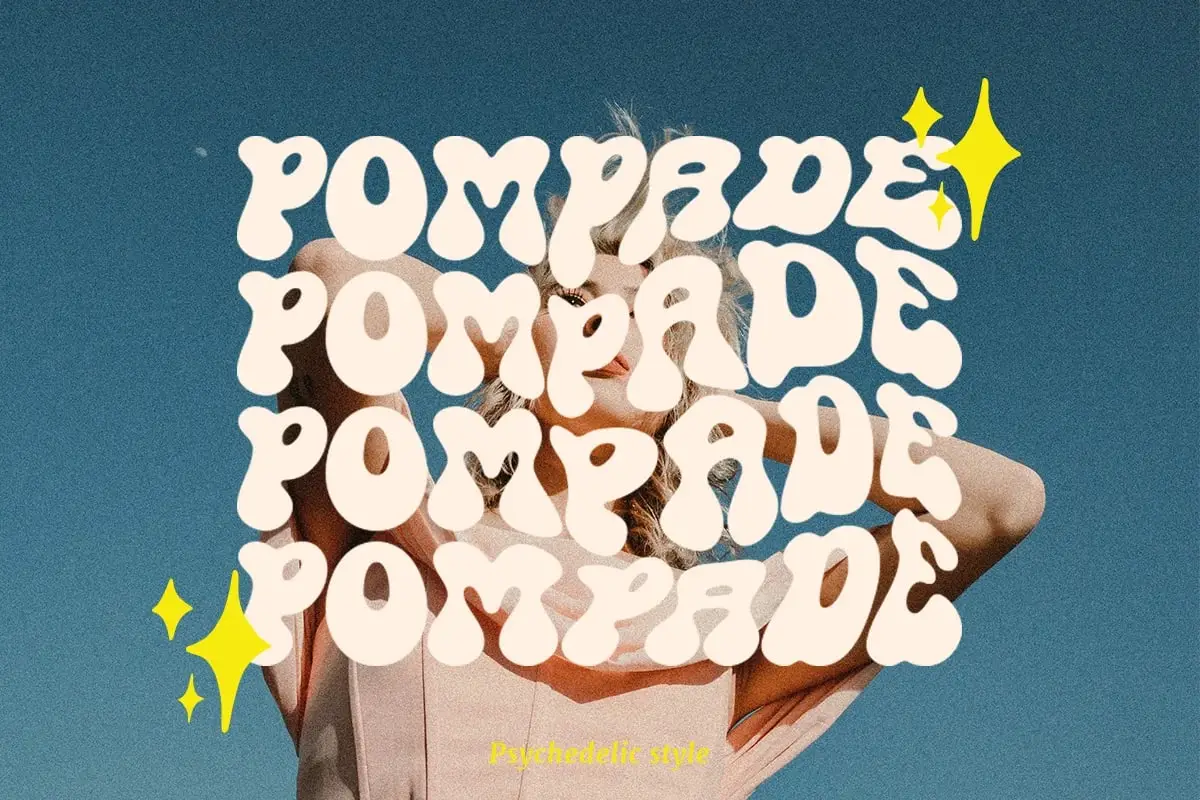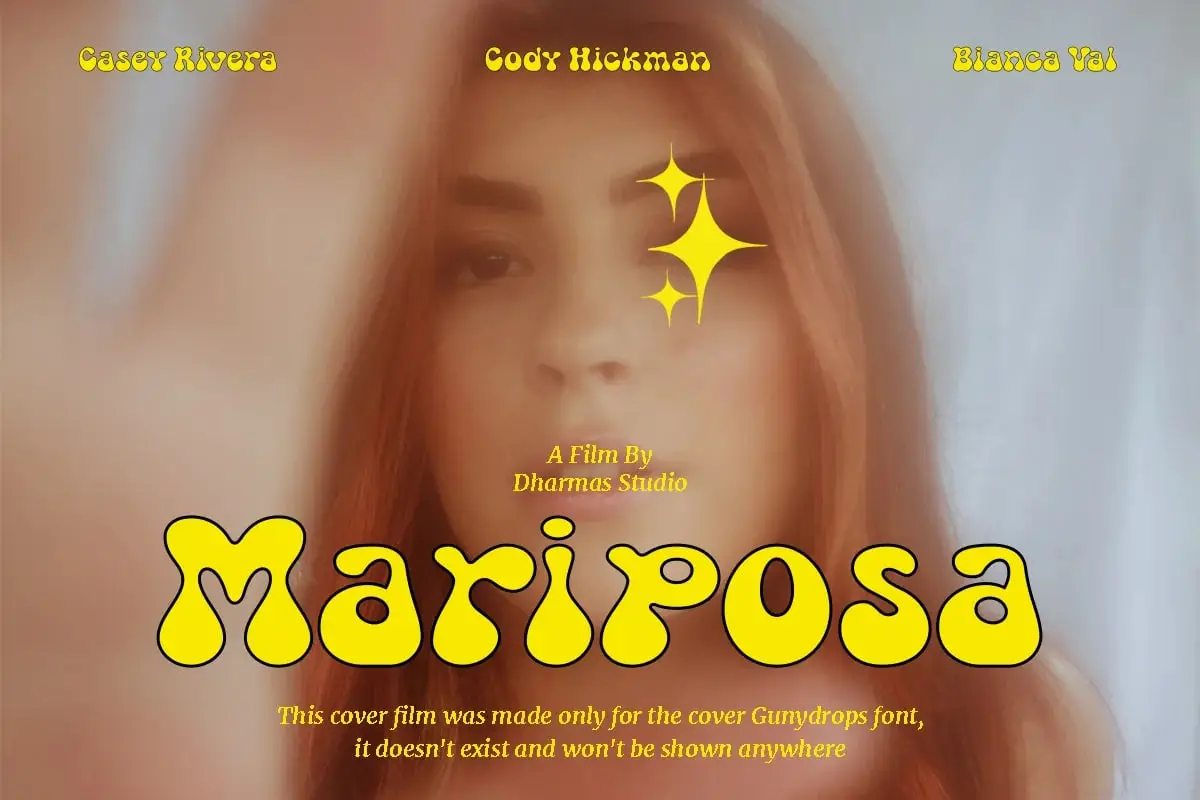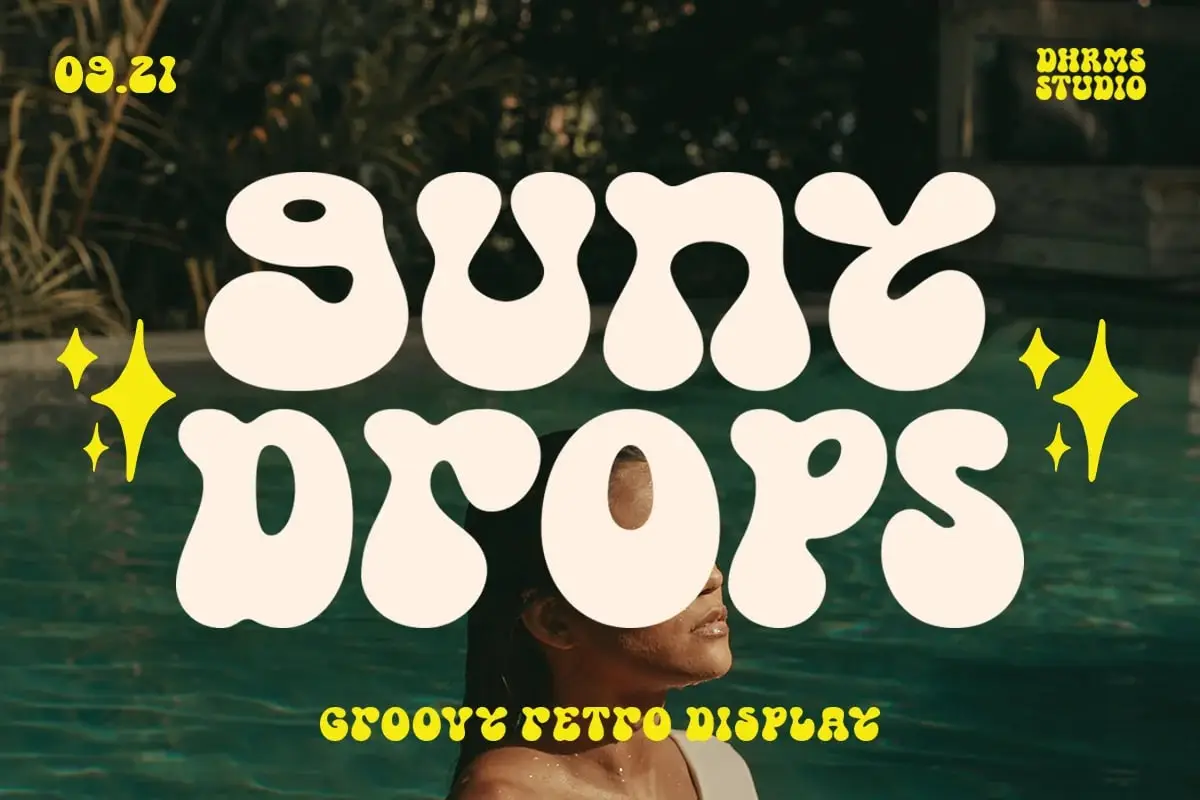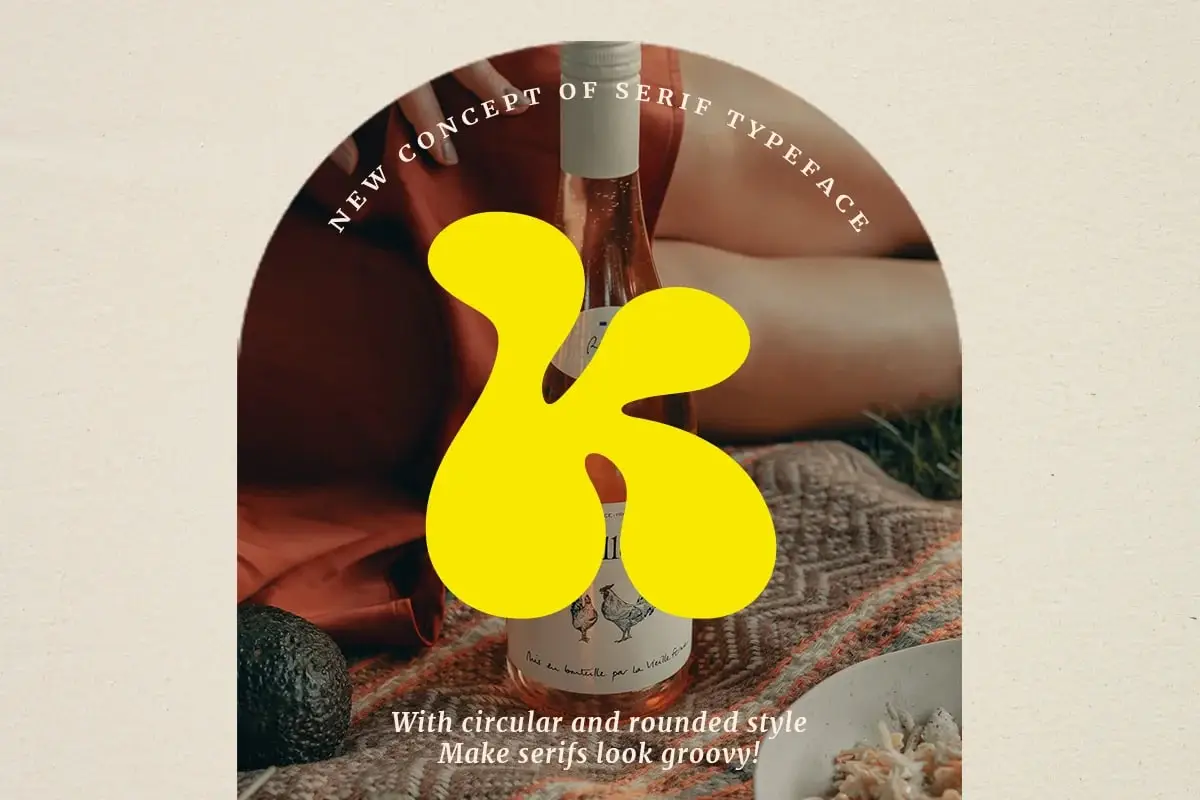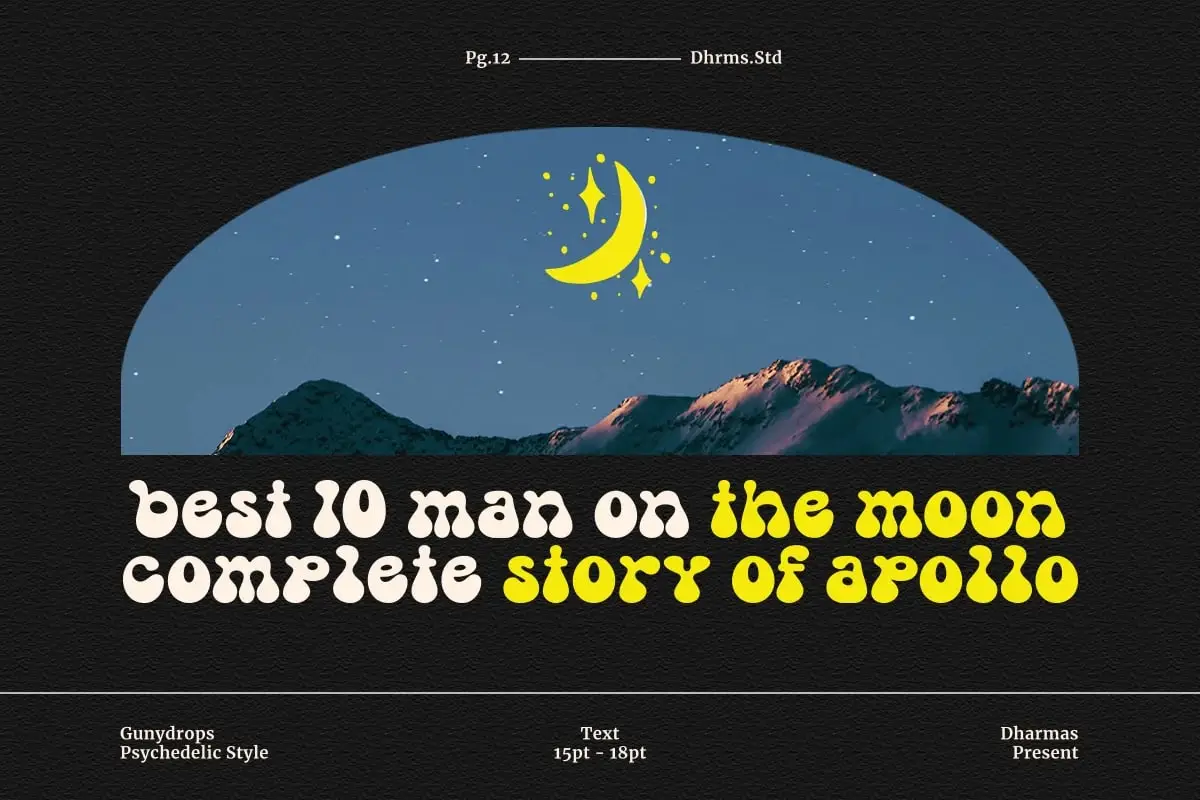
The Gunydrops Display Font is a unique typeface designed to make a bold statement in any project. With its playful curves and distinct character, this font is perfect for branding, logos, and eye-catching headlines.
- Stylish display typeface
- Uppercase and lowercase letters
- Perfect for creating striking logos and branding materials
- Use in posters and promotional graphics for a fun touch
- Great for social media graphics and website headers
Gunydrops Display Font